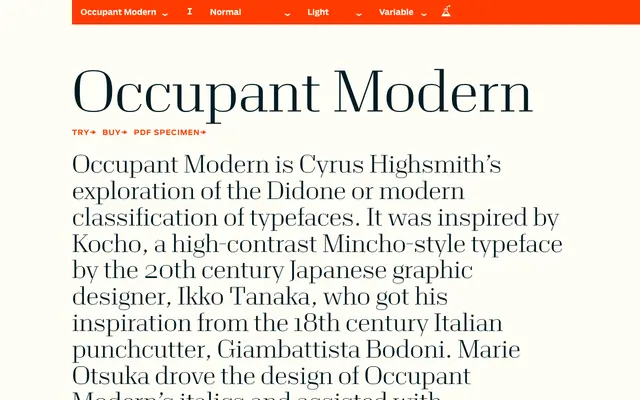
Occupant Modern
Occupant Fonts · Cyrus Highsmith and Marie Otsuka · 2025
A Didone drawn by Cyrus Highsmith and Marie Otsuka, tracing a lineage from Bodoni through Ikko Tanaka's Mincho-style Kocho.
The design traces an unusual cross-cultural line: Giambattista Bodoni's 18th century Italian punchcutting, reinterpreted by Japanese graphic designer Ikko Tanaka in his Mincho-style Kocho, and now revisited by Highsmith with italics led by Marie Otsuka. Thirty styles span five weights from Extra Light to Black across standard, Condensed and Compressed widths, each with matching italics. Latin, Cyrillic and Greek script coverage is paired with small caps, oldstyle figures, tabular figures and localized forms.
Explicitly classified by Occupant as Didone or modern, featuring high contrast strokes derived from a cross-cultural lineage connecting Bodoni to Japanese Mincho design.